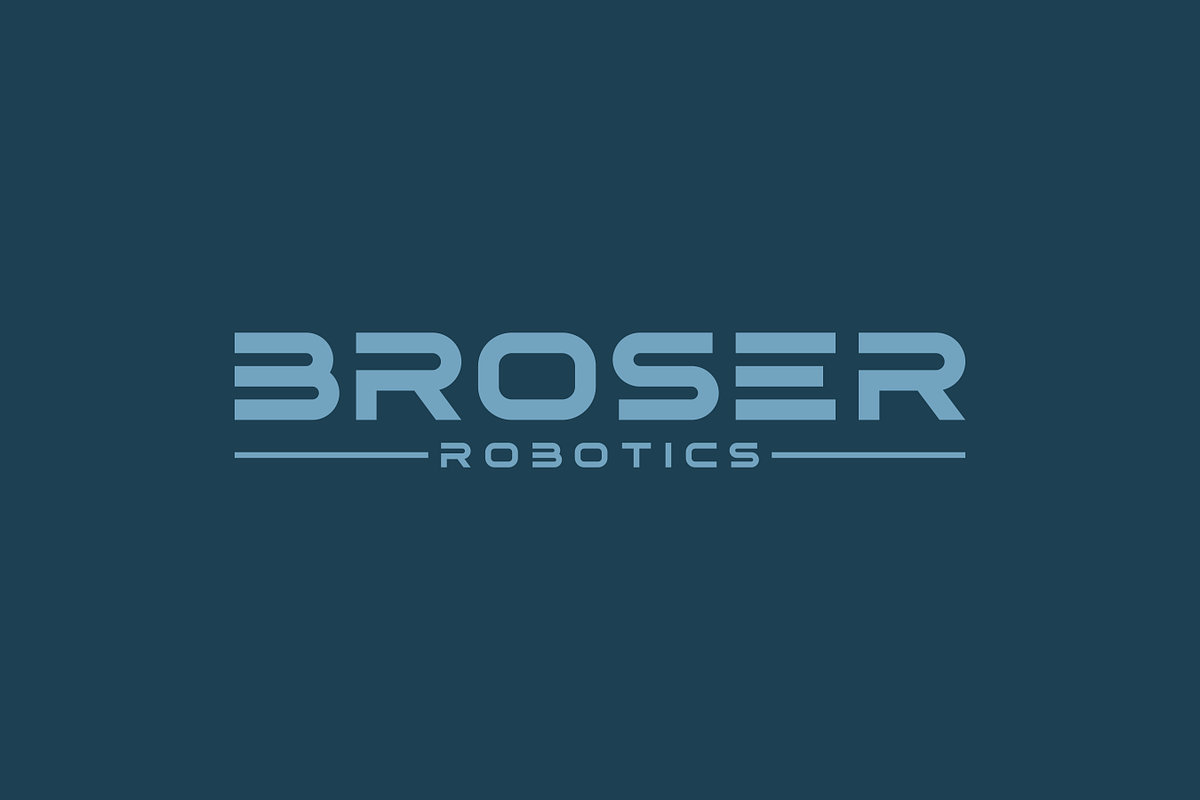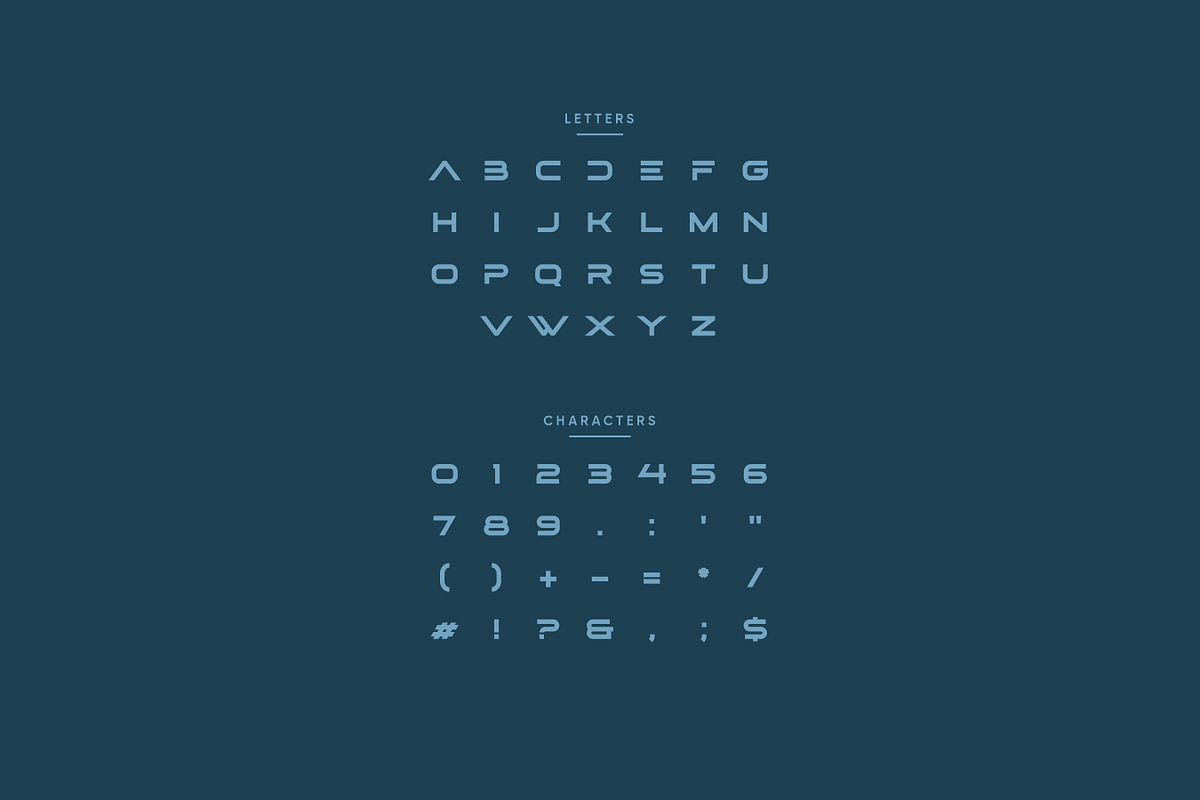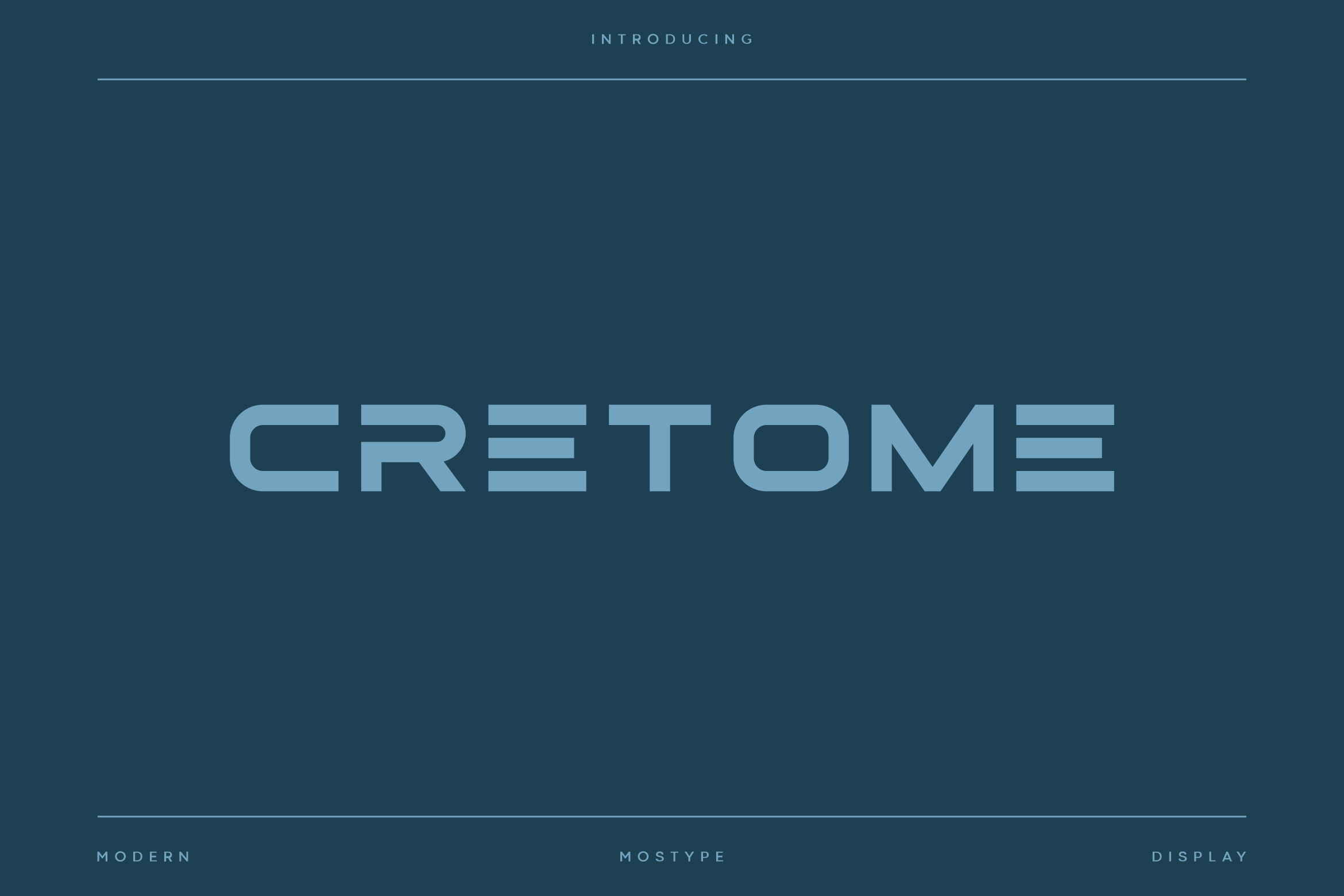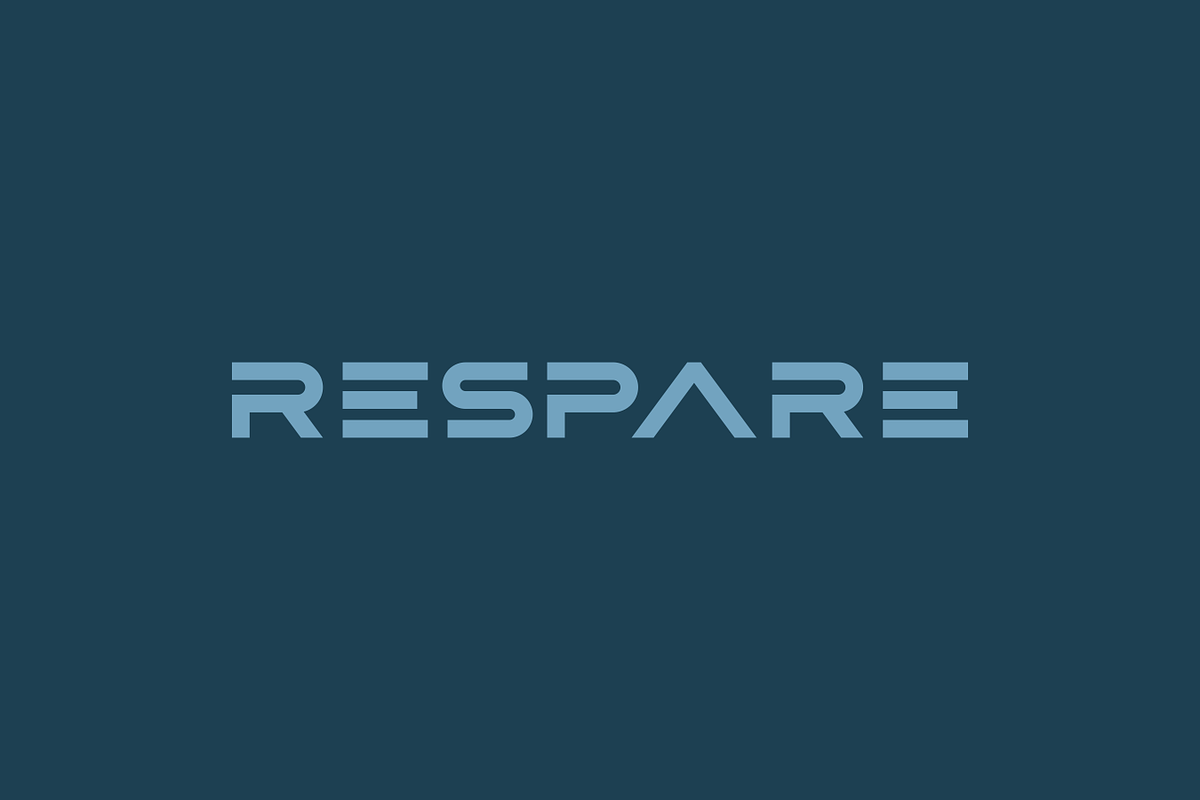
Cretome - Modern Display Typeface
Cretome is an unique minimal & modern display typeface that defines a class of it's own. Cretome is dedicated for display and branding purposes, where this typeface can be a perfect choice for creating logotype, branding, headline, digital ads, marketing material for web & print as well as any type of minimal design.
- Punctuation & Number